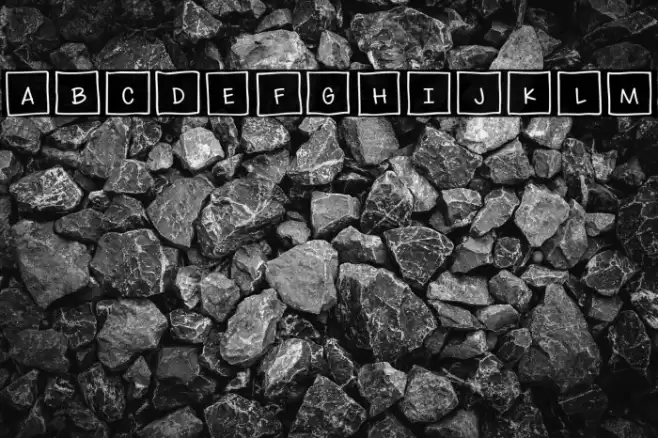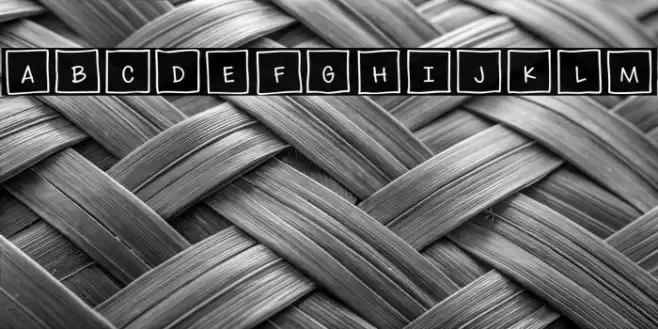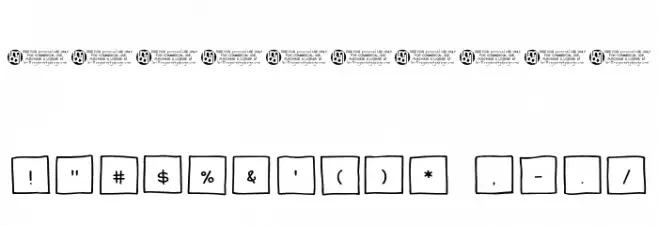
Sticky Memos Demo Plain Font
Sticky Memos Demo Plain Description
This playful and whimsical font features characters that appear as if they are hand-drawn on sticky notes. Each letter is enclosed in a slightly irregular square, giving it a casual and informal feel. The lines are uneven, adding to the charm and uniqueness of the design. The font maintains a consistent style across uppercase, lowercase, numbers, and special characters, making it versatile for various creative projects. Its distinct appearance makes it ideal for projects that require a personal touch or a fun, relaxed vibe.
A playful, hand-drawn font resembling characters on sticky notes from Uncategorized fonts.
- Font: Sticky Memos Demo Plain
- Proposed Projects: Ideal for children's books, casual invitations, scrapbooking, and playful branding.
- Overall Style: Casual, Playful